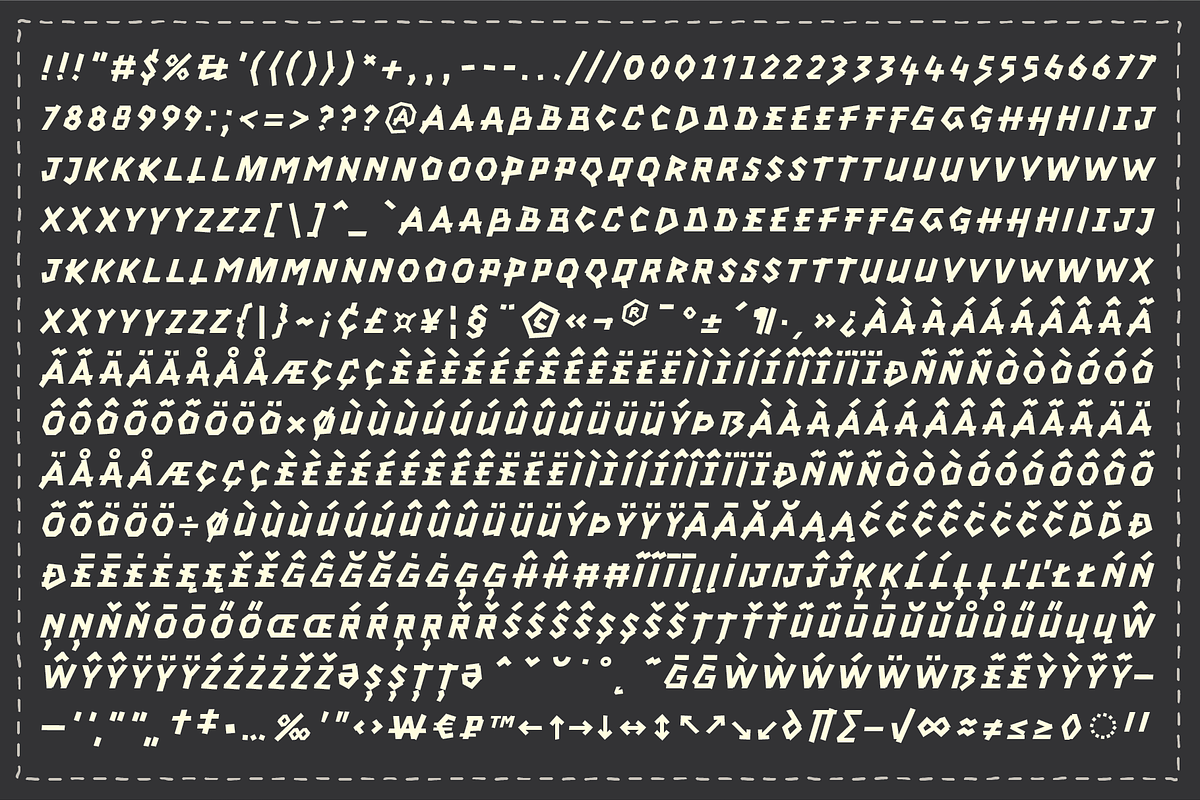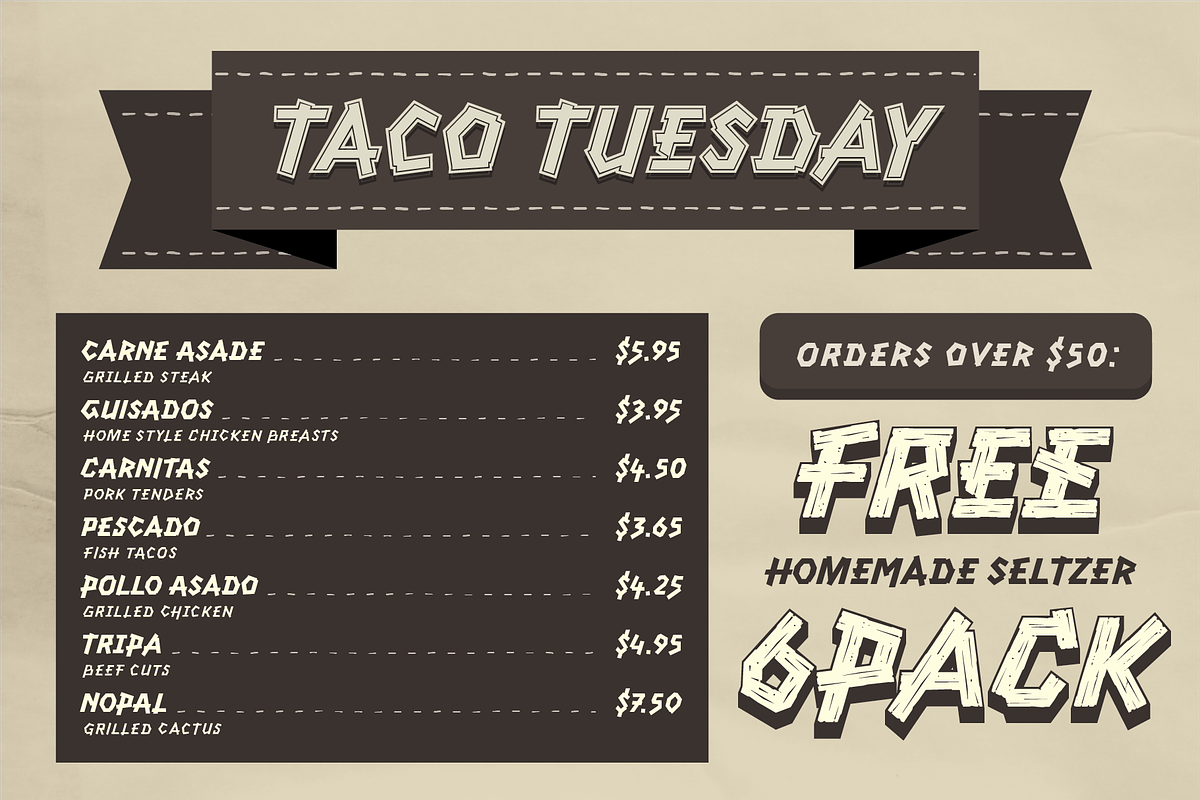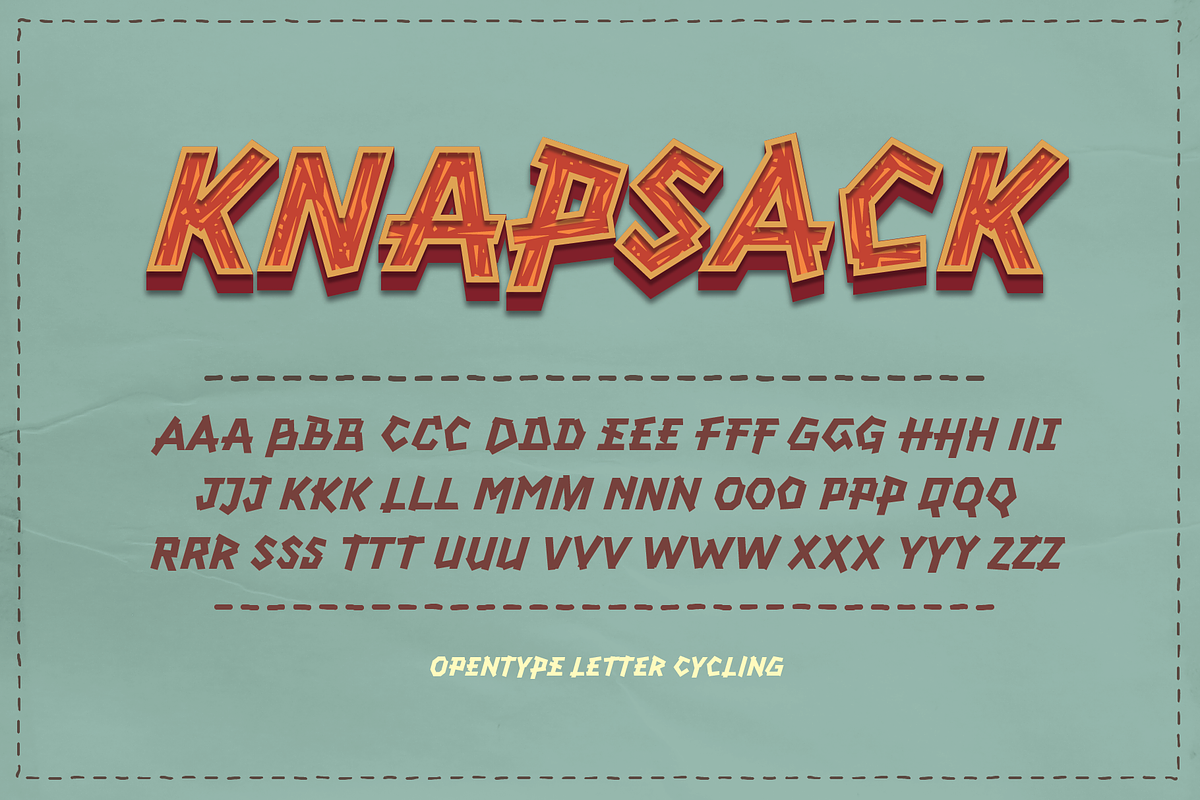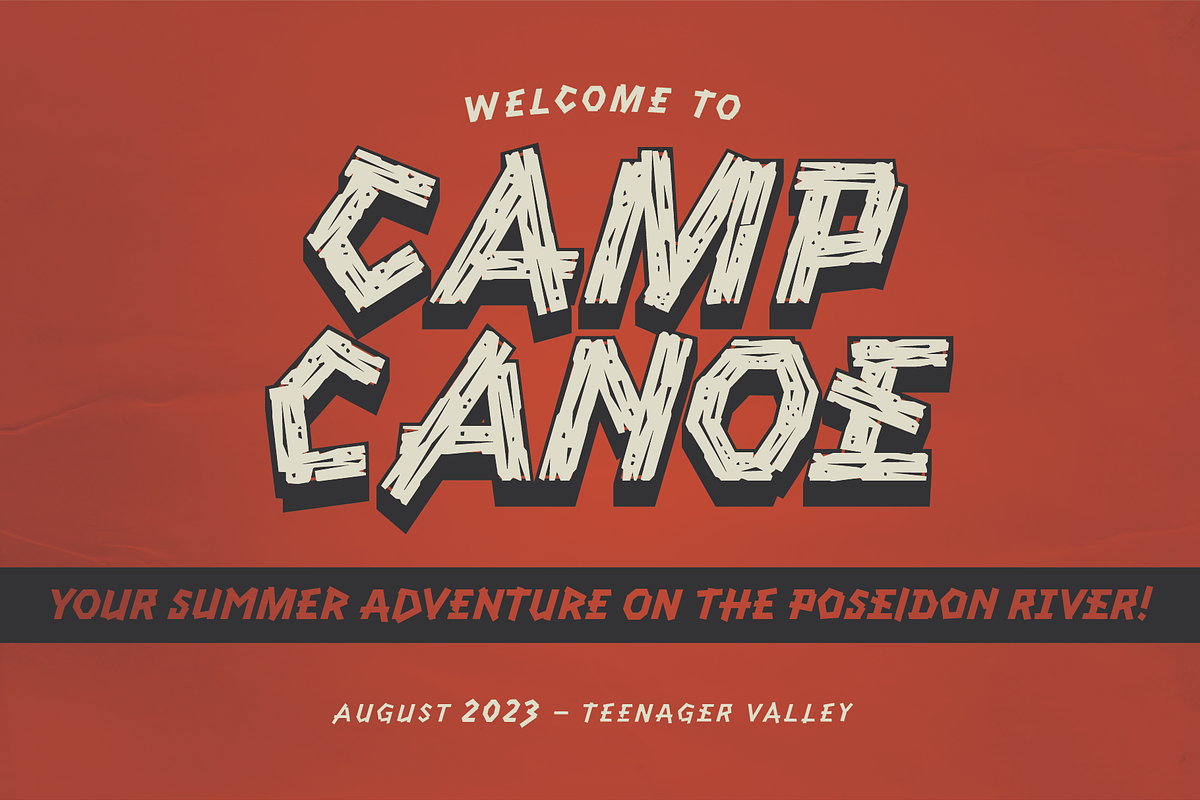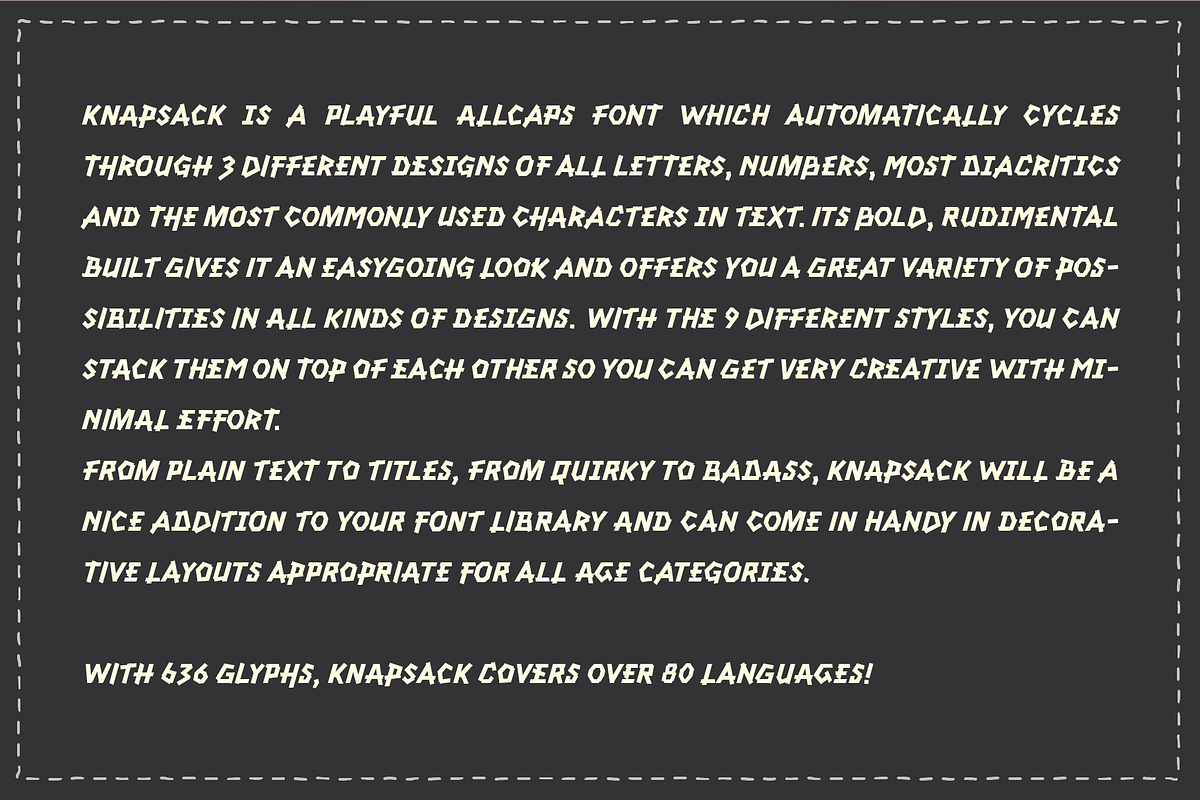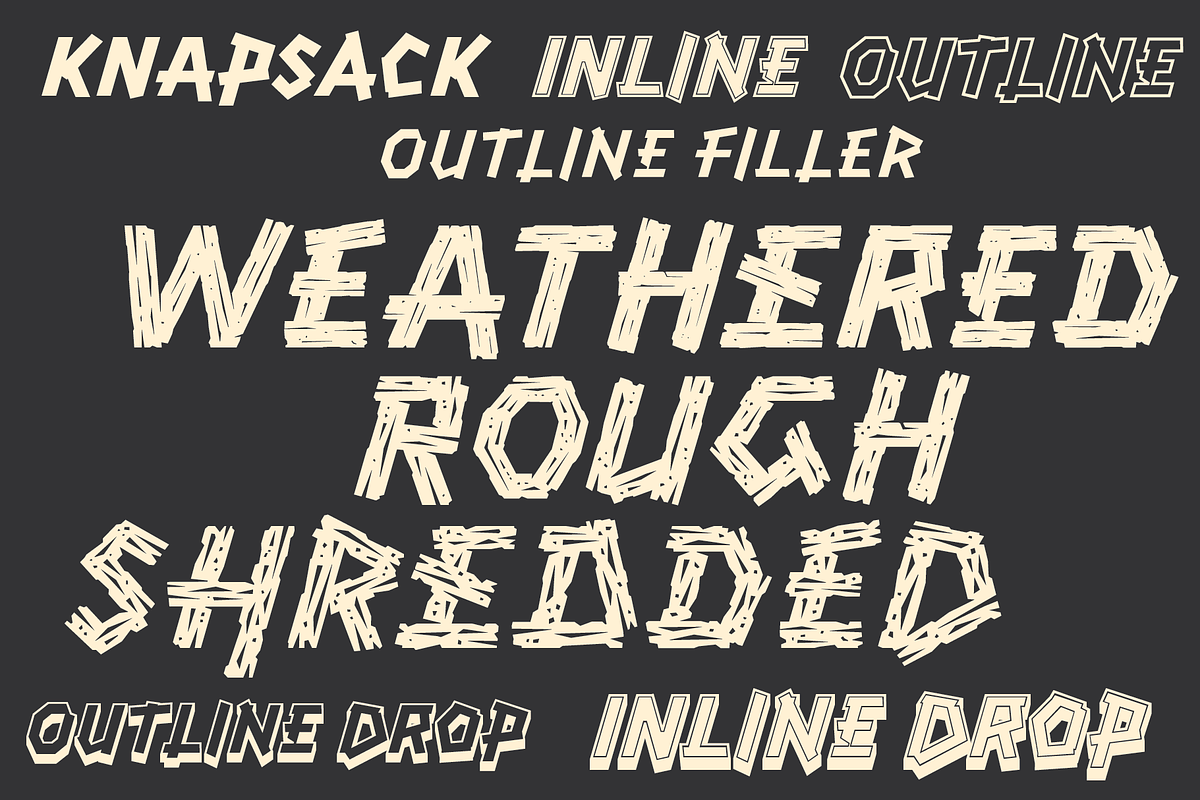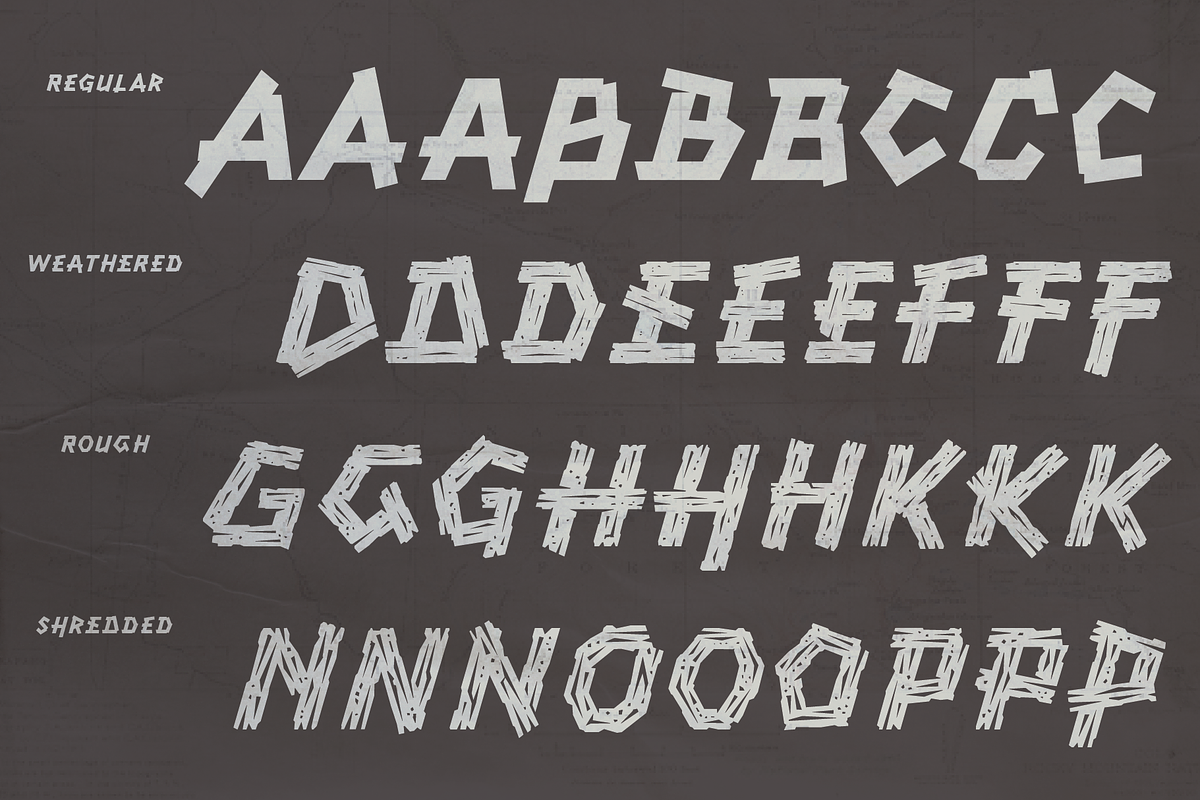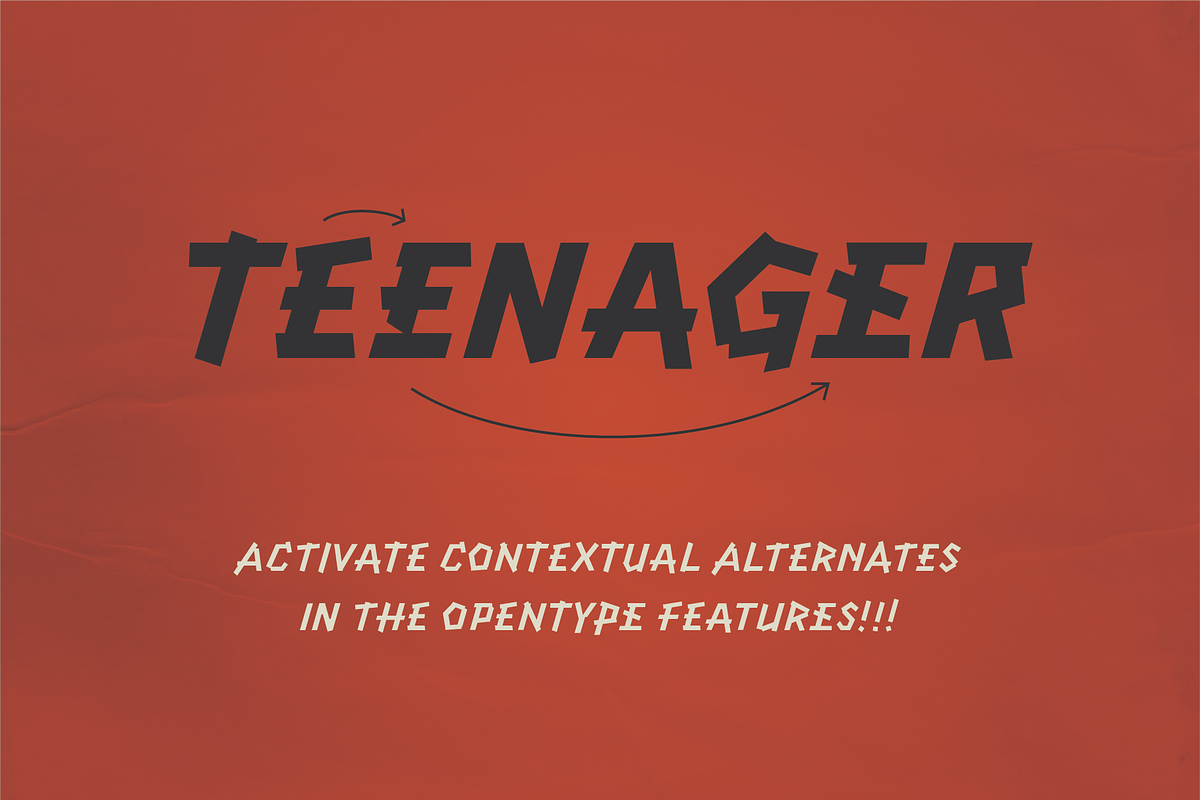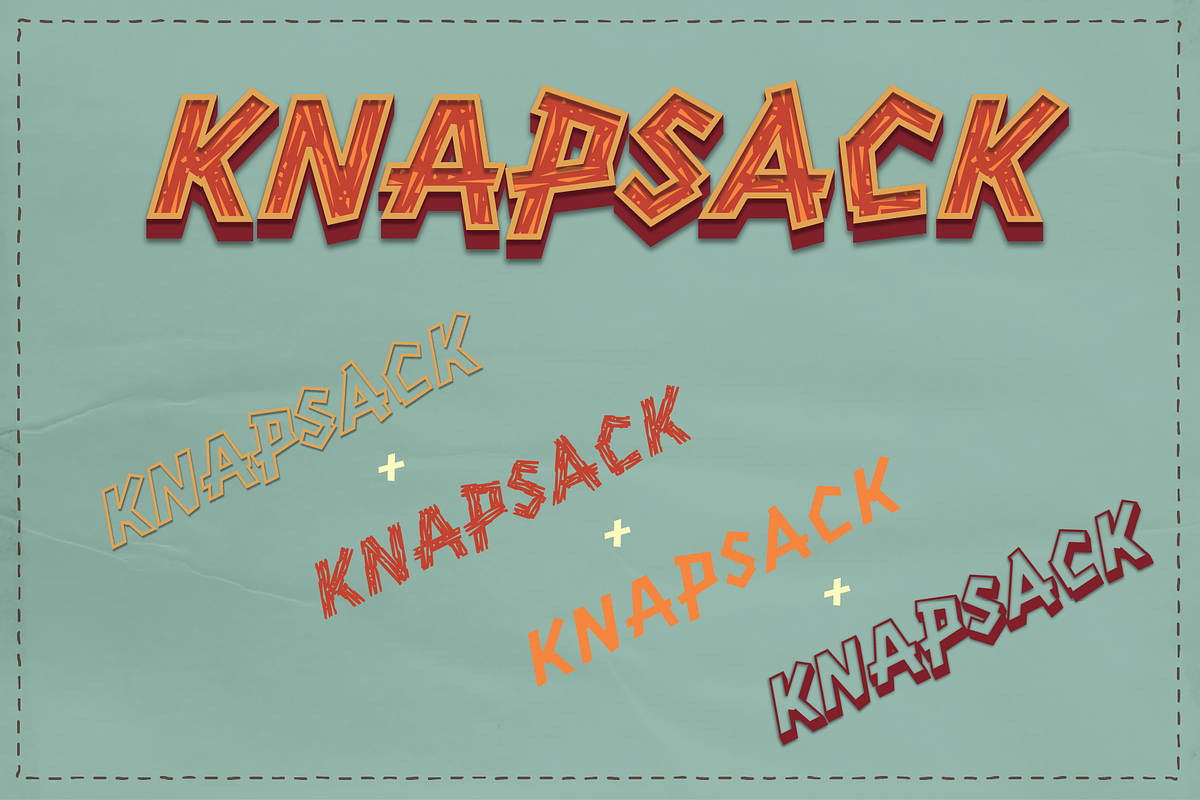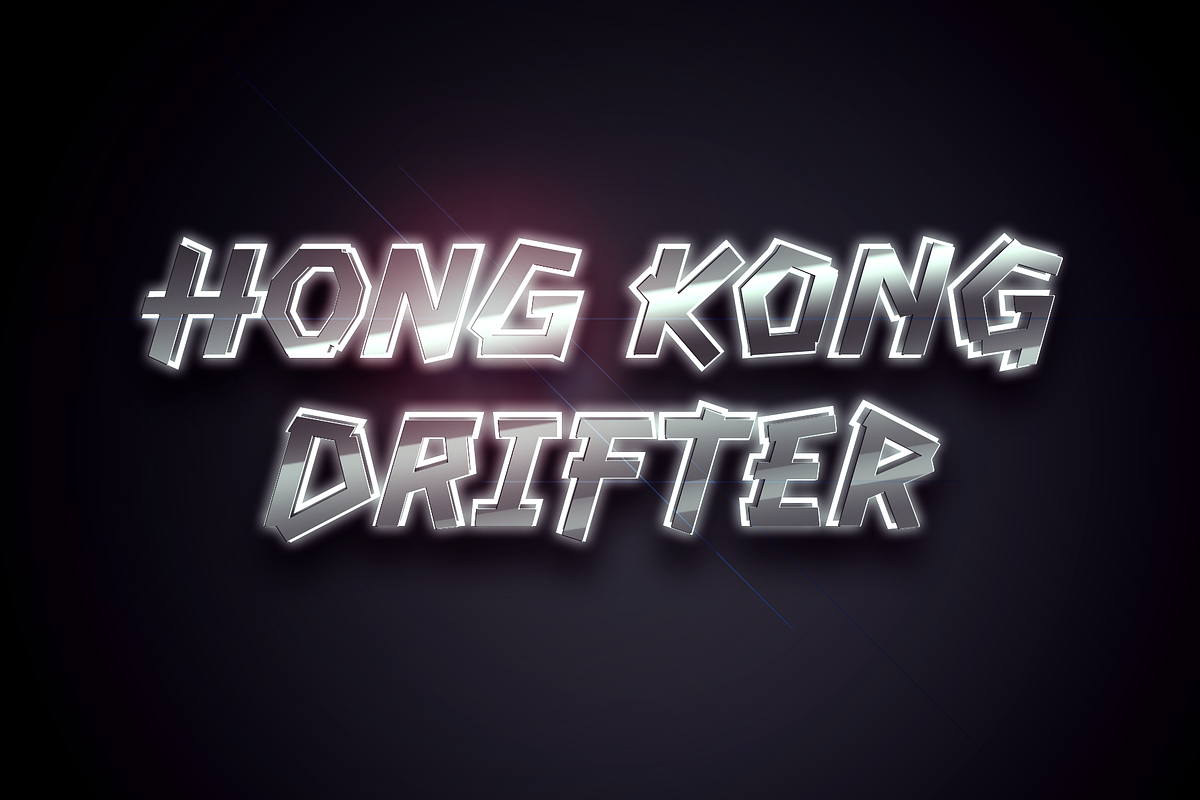
KNAPSACK - Decorative Font Family
KNAPSACK is a playful AllCaps font family which can automatically cycle through 3 different designs of all letters, numbers, most diacritics and most commonly used characters in text. You can get really creative and stack the 9 different font styles on top of each other to try out different looks. Depending on the colors and effects that you use, it can become a very versatile font to have in your collection!